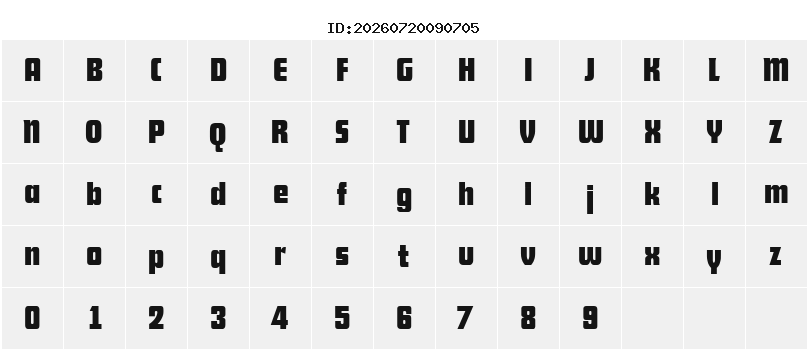
• Font Name: Future
• Full Font Name: Future Regular
About Future.ttf
Future.ttf is a modern, elegant sans-serif font designed for ultimate readability and visual harmony. Perfect for branding, headlines, web design, and print materials.